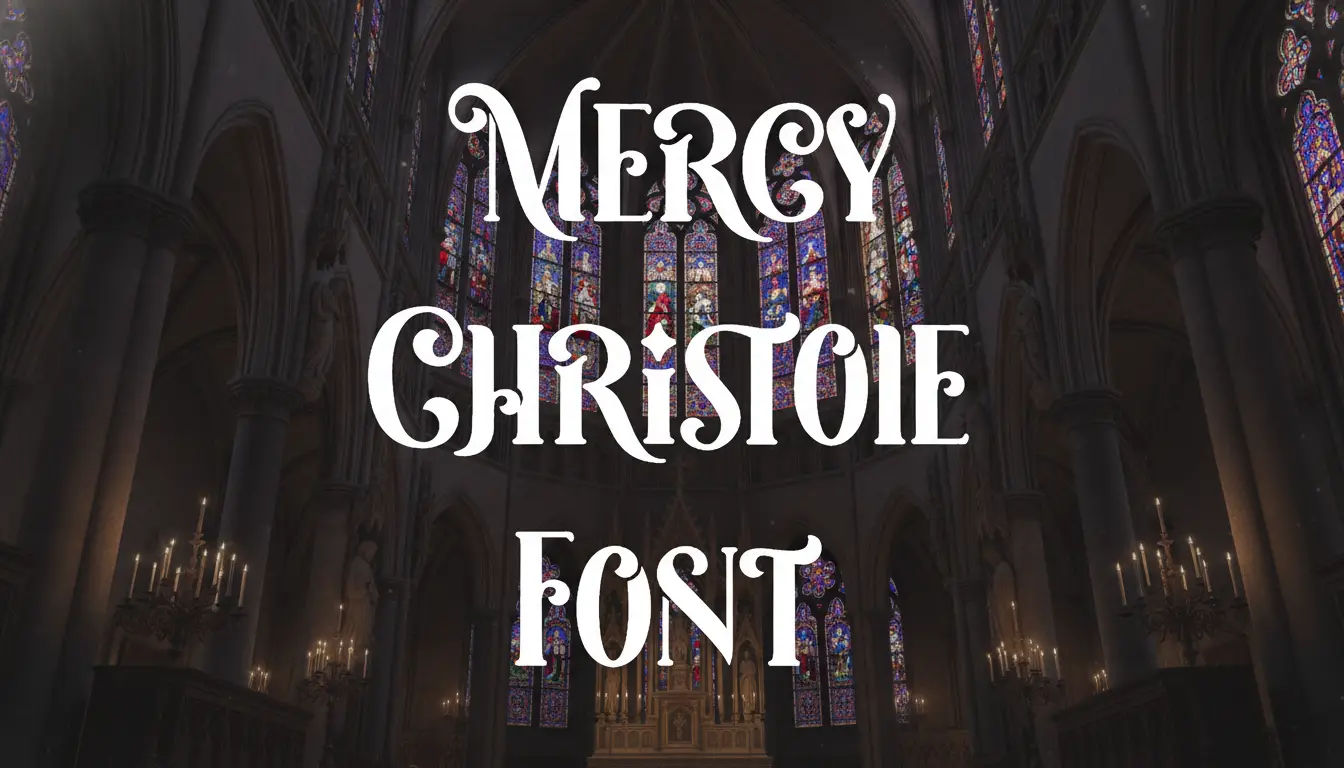
Mercy Christole Font
Mercy Christole Font Preview
Mercy Christole
Mercy Christole is a fancy font created by Burhan Afif and released through HansCo. It's a decorative display font with plenty of personality, made to grab attention. It's a free download, and you can try it with your own text in the preview above first.
What You Can Type With Mercy Christole
You get every letter from A to Z in both cases and all the numbers from 0 to 9, which means Mercy Christole can handle full sentences, dates and prices. Common punctuation such as &, !, ? and @ is included as well. It also has the accented letters you need for Spanish, French, Portuguese and Italian.
Where Mercy Christole Works Best
Designers usually reach for fonts like Mercy Christole when they're making posters, logos and eye-catching headlines. Use it for one standout word or headline and let simpler fonts handle the rest.
Does Mercy Christole support accented letters?
Yes. Mercy Christole includes the accented letters needed for Spanish, French, Portuguese and Italian, so it works for more than just English.